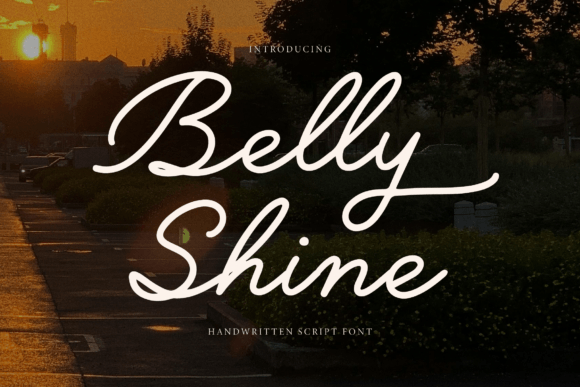
The Perfect Handwritten Touch: A Deep Dive into Belly Shine Font
Ah, the quest for the perfect font. You know, that one magical typeface that elevates your design from meh to mesmerizing. I’ve been there, done that, and got the t-shirt (which, by the way, was designed with a fabulous font). Recently, while working on a client’s branding project, I found myself on a mission to find a font that exudes warmth, elegance, and a dash of personality. That’s when I stumbled upon the gorgeous Belly Shine Font. ✨
First Impressions: A Beautiful Handwritten Script
Belly Shine is a beautiful handwritten script font that feels personal and elegant. It has smooth, flowing letters that give a friendly and stylish touch to your designs. Perfect for adding a warm, handwritten look to any project, Belly Shine is quickly becoming my go-to font for a variety of design tasks.
- ✨ Elegant and Personal: Belly Shine strikes the perfect balance between elegance and personality. It’s sophisticated yet approachable.
- ✅ Smooth and Flowing: The font’s smooth, flowing letters make it a joy to use for any design project, from branding to invitations.
- 💕 Versatile: Whether you’re working on a feminine project or something more masculine, Belly Shine adapts beautifully.
While Belly Shine is a stunning font, there are a few things to keep in mind:
- 🤔 Legibility at Small Sizes: Like many script fonts, Belly Shine can get a bit tricky to read at very small sizes. It’s best used at larger sizes where its beauty can shine.
- ⚠️ Overuse: Because it’s so lovely, it’s tempting to use Belly Shine for everything. Remember, a little goes a long way. Pair it with some simpler fonts for the best results.
The Story Behind Belly Shine
While the origins of Belly Shine might be shrouded in mystery, it’s clear that its designer was on a mission to create a font that feels both personal and luxurious. Imagine a designer, sitting with a pen and paper, aiming to craft letters that flow like handwriting but have the elegance of a high-end typeface. That’s Belly Shine in a nutshell.
Q: What type of projects is Belly Shine best suited for?
A: Belly Shine is incredibly versatile and can be used for a wide range of projects, from branding and packaging to invitations and social media graphics.
Q: Does Belly Shine support OpenType features?
A: Yes, Belly Shine supports various OpenType features, including stylistic alternates and glyphs, which can add more variety and creativity to your designs.
Q: Is Belly Shine difficult to read at small sizes?
A: Like many script fonts, Belly Shine may be challenging to read at very small sizes. It’s best used at larger sizes to maximize its beauty and legibility.